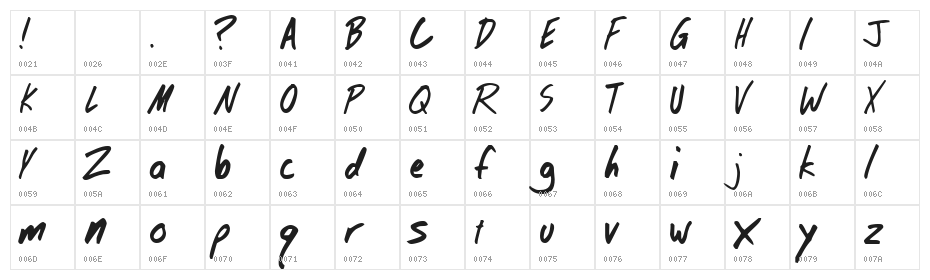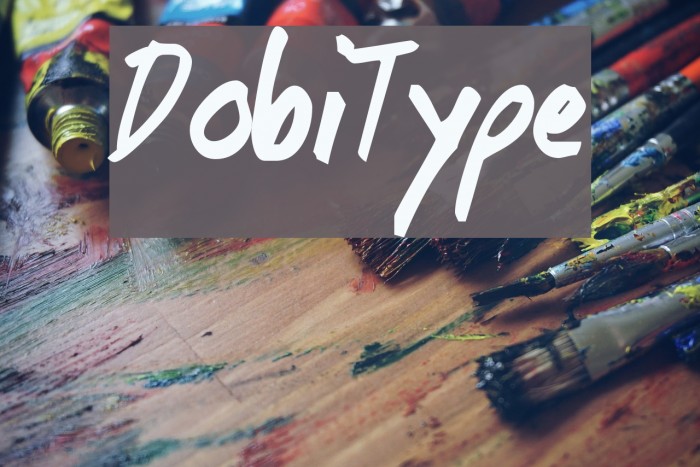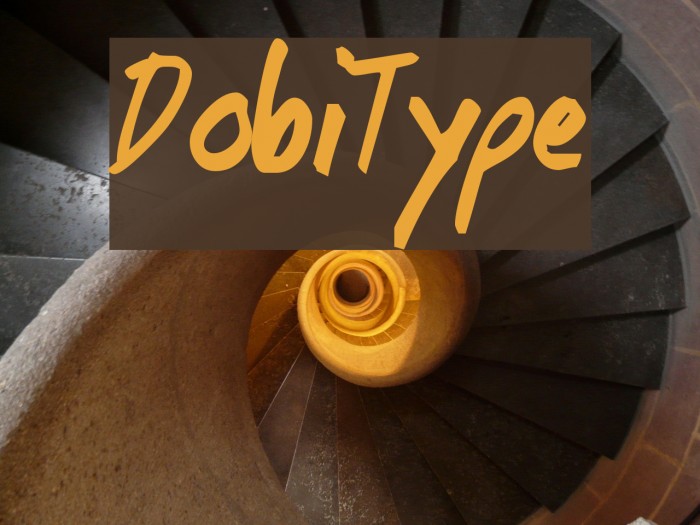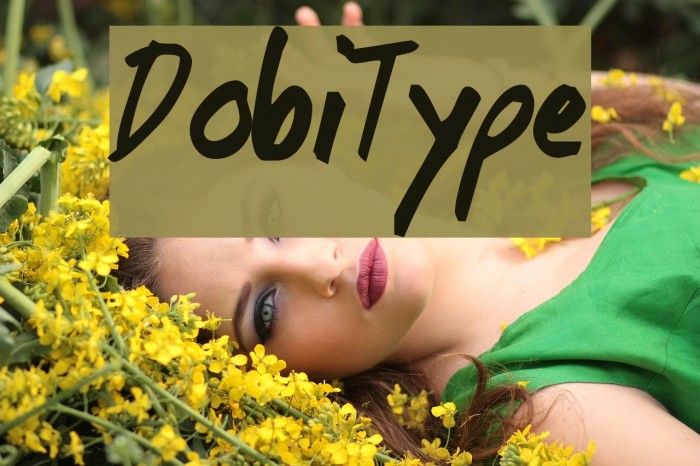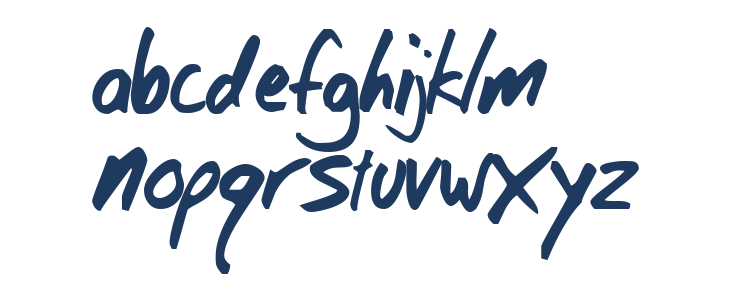
DobiType Font
DobiType Description
This font features a dynamic and energetic handwritten style, characterized by its bold and fluid strokes. The uppercase and lowercase letters exhibit a casual yet expressive appearance, with a slight slant that adds to its informal charm. The letters are well-spaced, ensuring readability while maintaining a lively rhythm. The font's playful nature is further emphasized by its exaggerated curves and varying stroke widths, which give it a distinctive personality. It is suitable for projects that require a personal touch or a creative flair.
| Proposed Projects | Ideal for greeting cards, posters, branding, and social media graphics. |